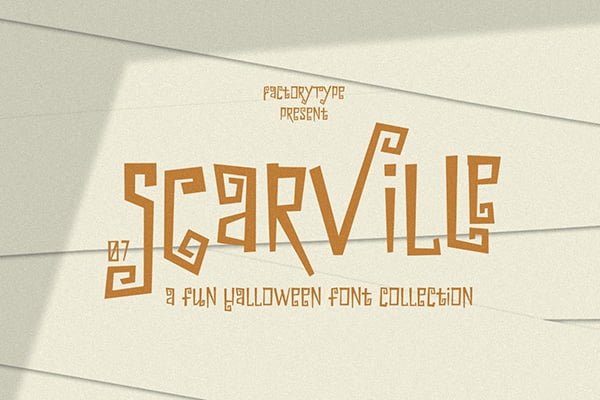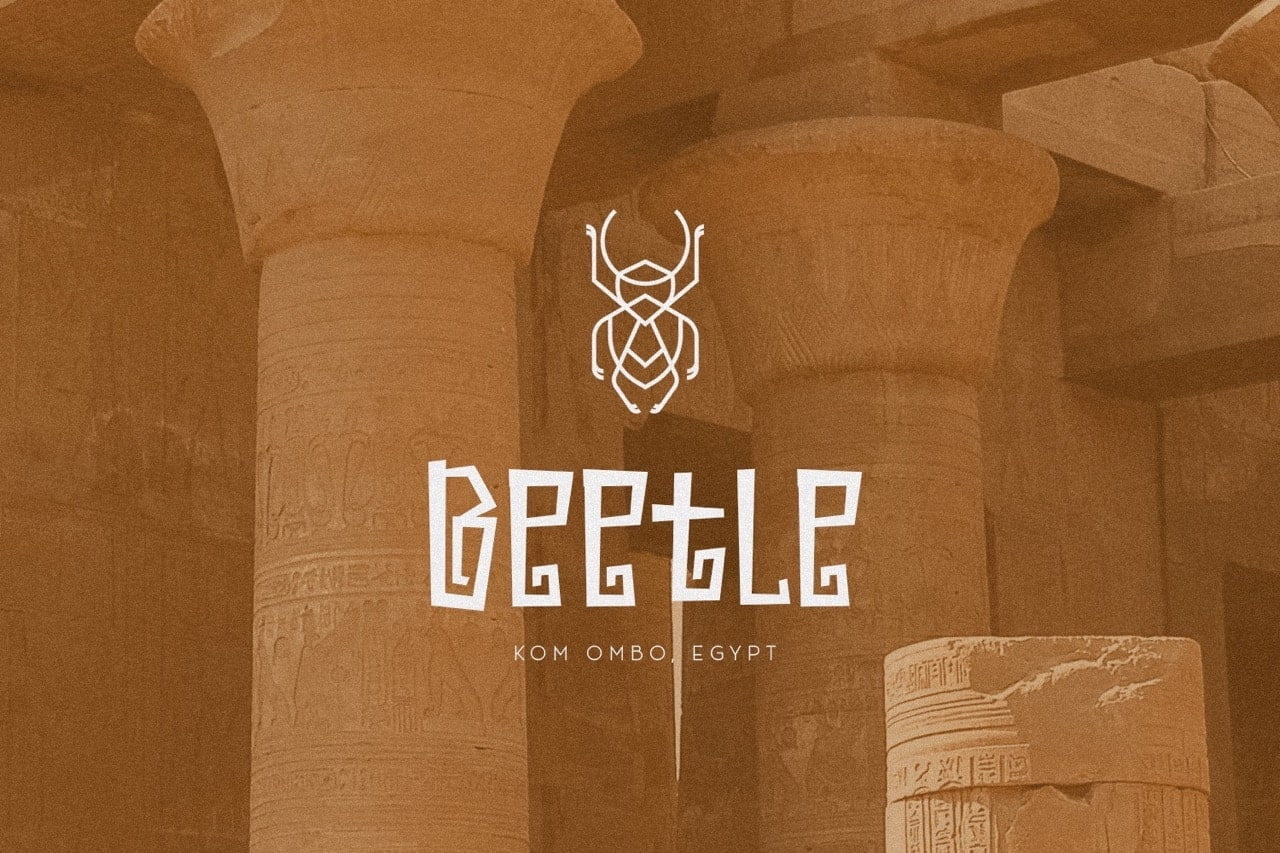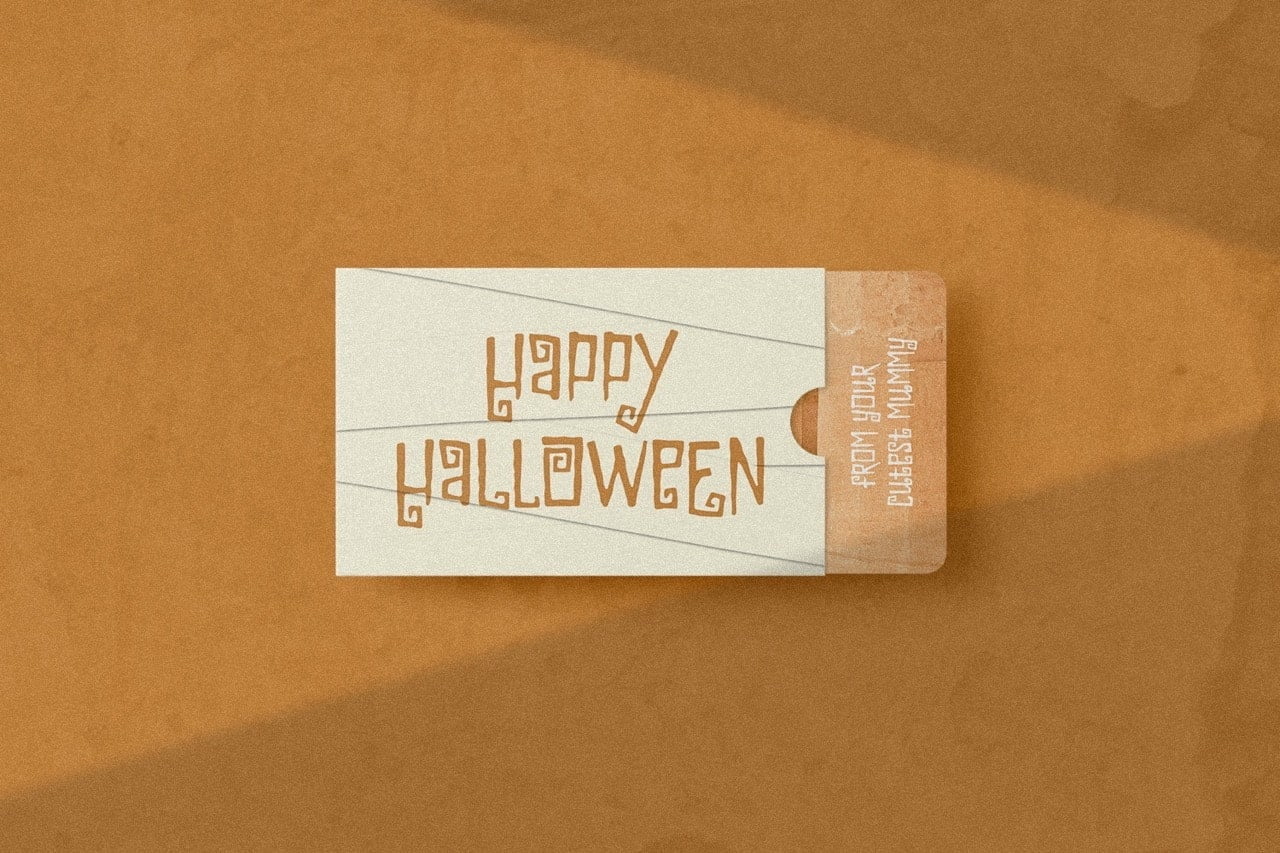
Scarville is a great choice for Halloween projects. Use its eerie atmosphere as a jumping-off point for your Horror project. There are numbers, punctuation and multilingual letters included to help you bring your imagination to life.
- 7 Styles
- Stylistic Ligatures and Alternate Glyphs